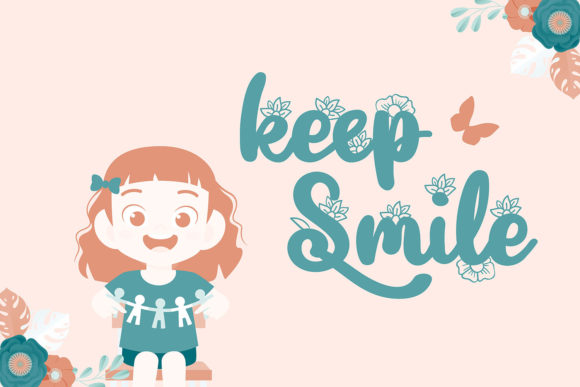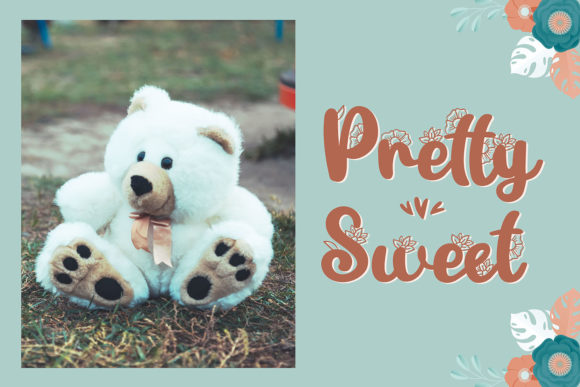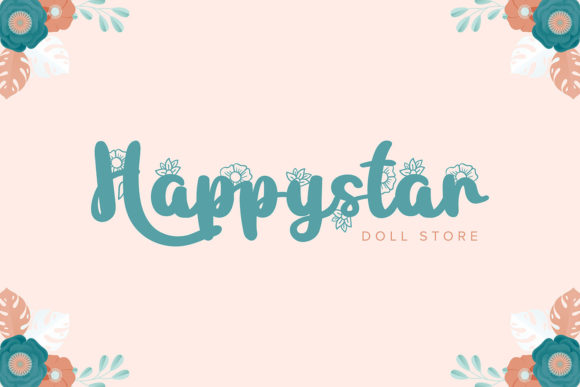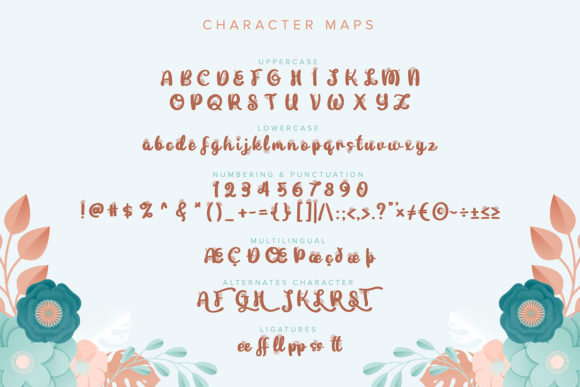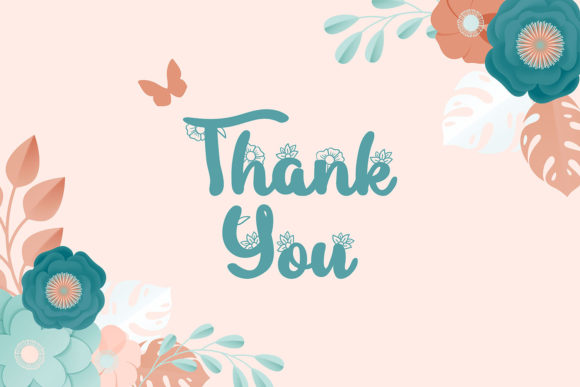
Gabriella Font
About Gabriella Font
Gabriella is a flowing and distinct handwritten font. Incredibly relaxed and versatile, this font is the perfect fit for your most creative ideas. Add it to your favorite projects and make them come alive!